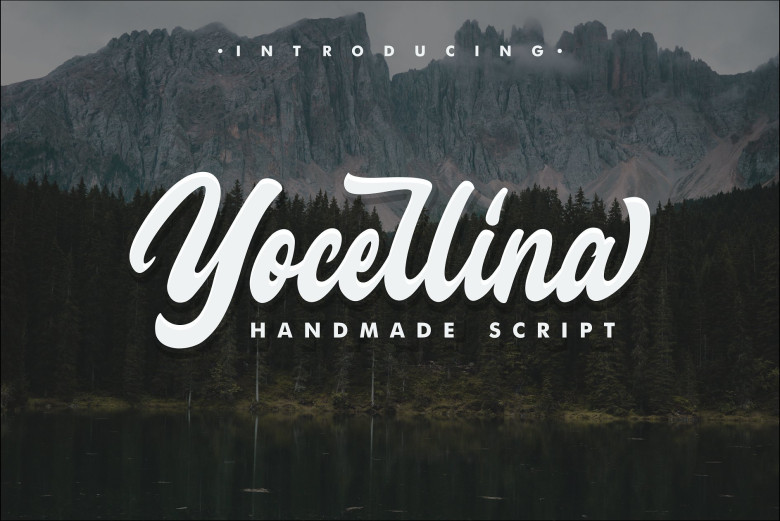
Yocellina Script Font
Hello! Start a new day with a handlettering script font. It allows you to create handwriting with beautiful calligraphy style and easily instantly. Introducing Yocellina Font. Yocellina designed and shared by MouzeType. Yocelina is a handlettering script font. Yocelina font is great for Branding, Logo Design, Lettering,Logotype, Clothing, Poster, magazine and other design project. Yocelina comes with uppercase, lowercase, numerals, punctuations and variations on each characters include opentype alternates, common ligatures.